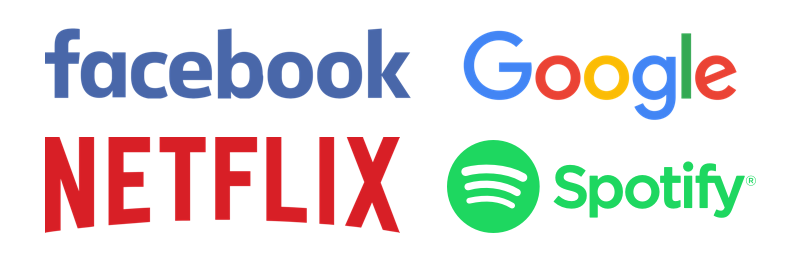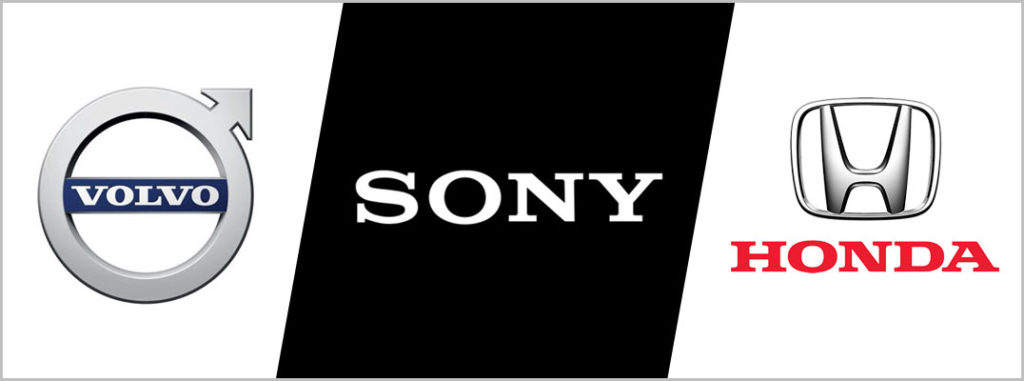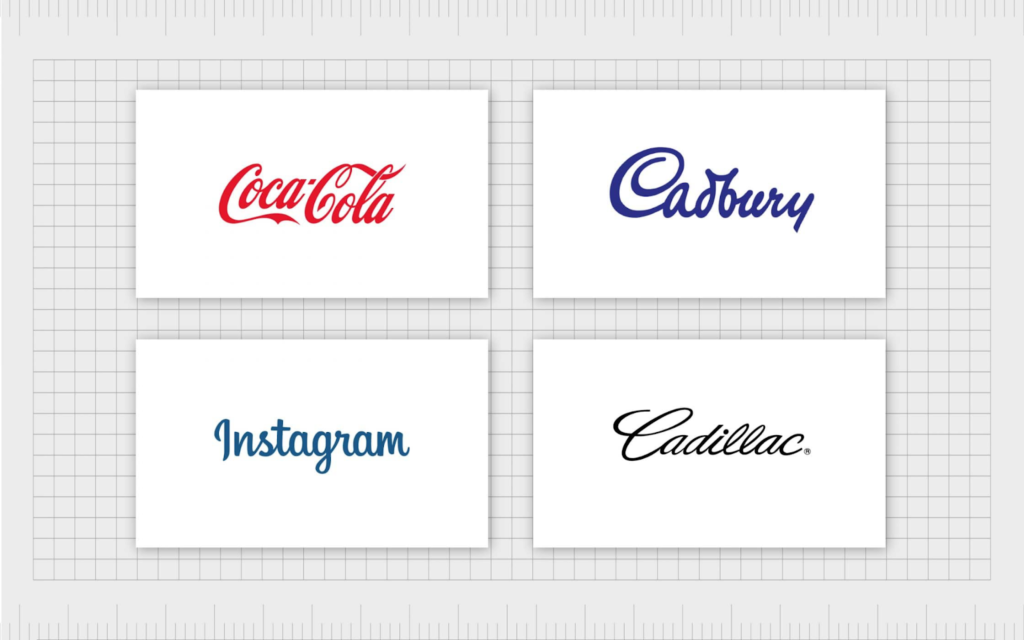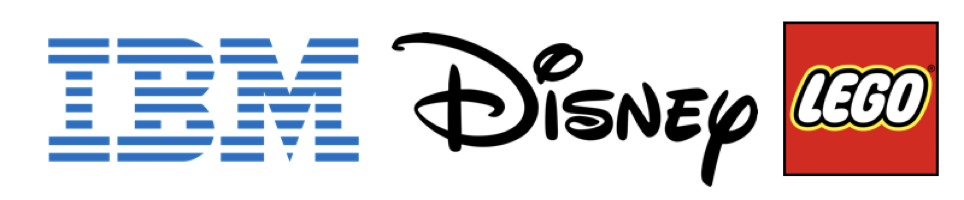
American art director and graphic designer Paul Rand once said, “Design is the silent ambassador of your brand.” Design offers a comprehensible personality to your brand with which your consumers can connect. One of the key aspects of designing is the right font. Every font is unique and narrates a different story. Therefore, when selecting brand fonts, it is essential that you pick ones that reflect the persona of your brand most perfectly.
Are you wondering where to start and how to understand which font is best suitable for your brand? In this blog, we bring some tips related to the best brand fonts that will elevate the brand’s identity.
Know the Font Groups and Their Characteristics
Before you dip your toes into the vast world of typography, it is crucial to understand which fonts work best for your brand. Choosing from the countless number of fonts can be overwhelming. There are numerous of them available at the click of your mouse. Read ahead to explore the five main types of fonts and their characteristics. It can help you opt for the appropriate one that matches your brand’s identity.
1. Serif fonts
Serif fonts came into existence in the 15th century. These are classic fonts that represent qualities, such as tradition, history, integrity, and authority. Fonts, such as Times New Roman, Verona, Cambria, Baskerville belong to the Serif family. These are more popular among high-end brands, such as Cartier, Vogue, Dior, and others.
2. Sans-serif fonts
Use a sans-serif font as your brand font style if you want your brand to be synonymous with the modern-day look. These fonts emerged in the 19th century and are known to portray characteristics, such as chic, clean, elegant, and stylish. Verdana, Arial, Helvetica, and Franklin Gothic are a few famous brand fonts from the sans-serif font group. L’Oréal, Netflix, Google, and Levi’s are some of the top names that use such fonts.
3. Slab serif fonts
Slab serif fonts are a category of serif fonts. Generally, traditional, well-established companies with a proven track record of producing quality products prefer to use these fonts. Courier New, Rockwell, Roboto Slab are some slab serif fonts.
4. Script fonts
Cadbury, Pampers, Instagram, Carlsberg, Coca-Cola. What do you notice in these names? It is a mix of contemporary and long-established brands. It is because script fonts can be graceful, flamboyant, playful, classical, and contemporary. Brush Script, Mistral, Allura, and Lucida Handwriting are some script fonts.
5. Decorative fonts
Diverse, distinctive, and dramatic are the qualities of these fonts. Certain companies, such as Disney, IBM, and Lego, feature decorative fonts, and they are especially eye-catching and memorable. Among the many decorative fonts are Fredericka, Bangers, Cherie Bomb, Lobster Two, and Fredoka One.
The Ultimate Guide to Picking the Best Brand Fonts
Now that you are familiar with the different brand font styles, let us move on to the tips that will help you select them.
1. Understand your brand image
The first and most important part is understanding the message you want to convey to your target audience. Define your brand’s identity before you start with the font selection process. Then you can start brainstorming words that best describe your company.
2. Find your brand’s personality traits
Classic, cutting-edge, energetic, sophisticated, playful, trustworthy: find more such words that you think are your brand’s personality traits. With these in mind, it becomes easier to finalize the best brand fonts.
3. Keep your target audience in mind
When used aptly, brand fonts have the power to communicate with your target audience. They also help build trust and brand personality. Consecutively, it is also important to conduct adequate research on your target audience before deciding on a font.
4. Research about fonts
Spend time researching the anatomy of various fonts. Before deciding on fonts, it is essential that you are well-informed about the trending fonts and other font-related updates.
5. Take notes from other brands
Find out more about the brands you have always admired and study how they use typography. Analyze the way they use specific fonts and how engaging they look. Visit their websites, or if it is in print format, get a copy to notice the impact.
6. Avoid following other brands blindly
Remember that simply because a particular font works for a brand you look up to, it may not align with your brand. A traditional serif might not fit a hip, youth-centric fashion label. And a delicate typeface might not suit an engineering company.
7. Start with a few fonts
It can be challenging to shortlist fonts. But try to narrow down your choices to three or four 3-4 fonts. Once shortlisted, put your brand text in each of the fonts and observe them one by one. Then, place them next to each other and compare them.
8. Ensure versatility